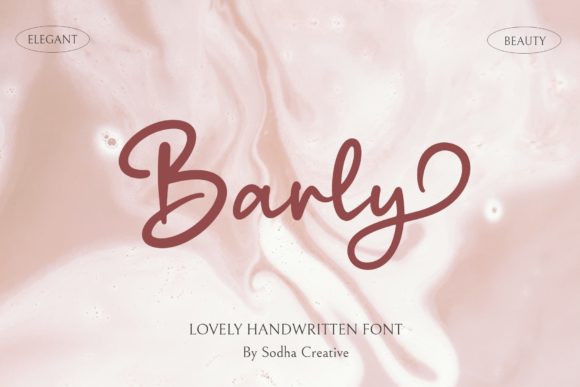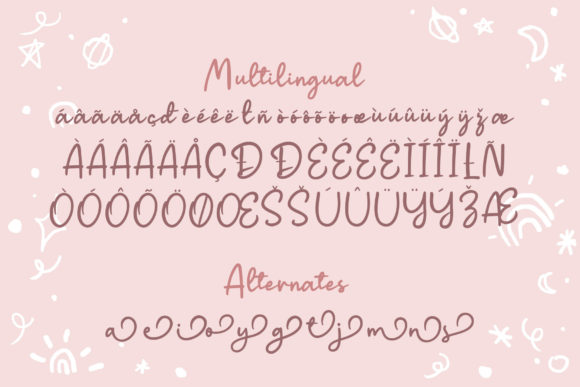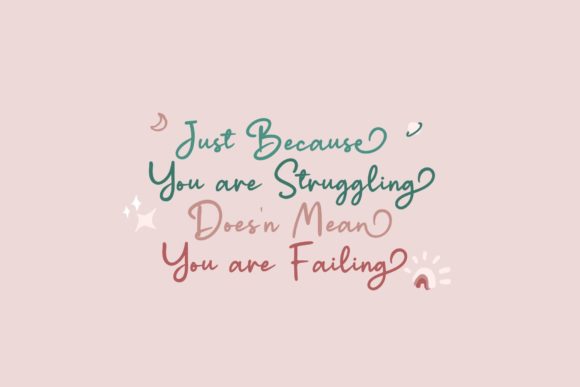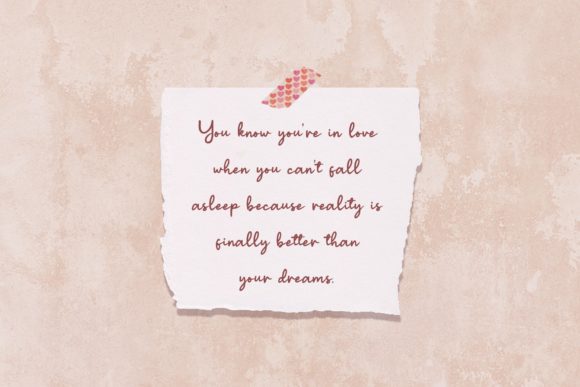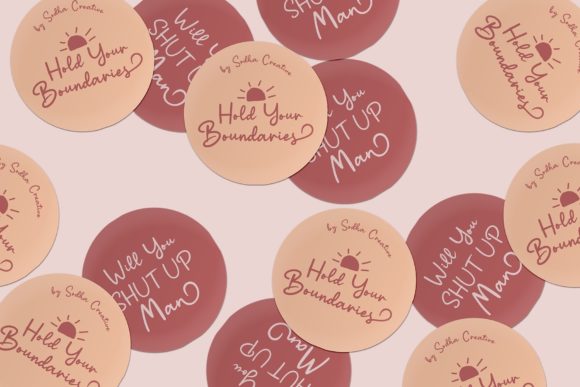
Barly – Cute Script Font
About Barly – Cute Script Font
Barly is a delicate and elegant handwritten font. Its distinct and well balanced letters make this font a masterpiece. Fall in love with its incredibly versatile style and use it to create spectacular designs!